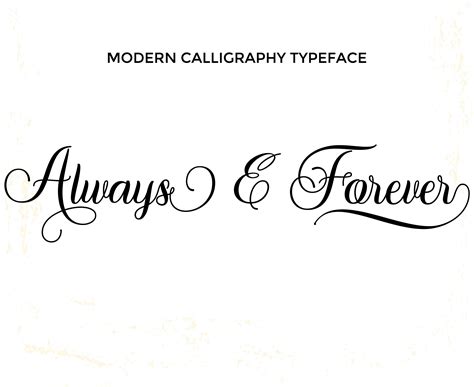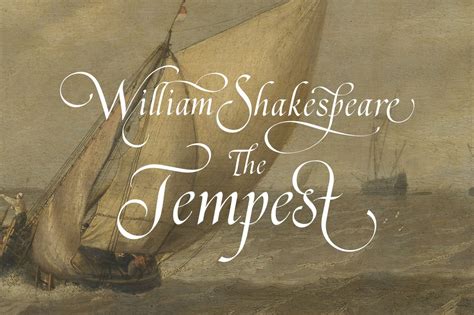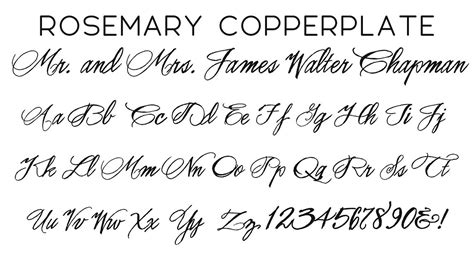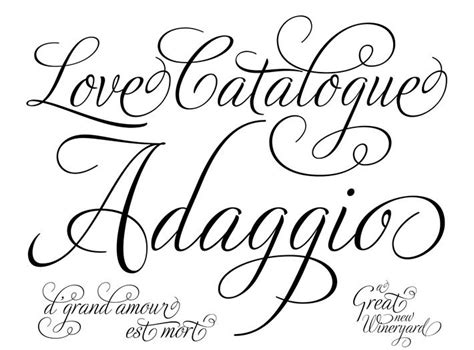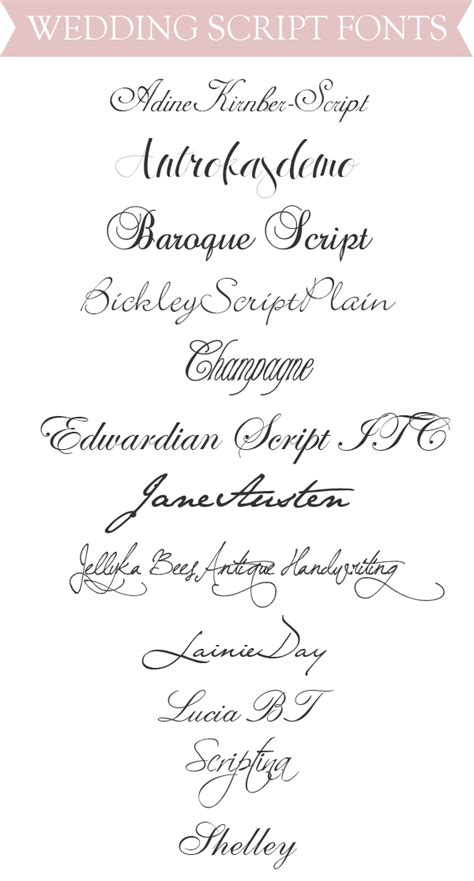
Wedding Script Fonts On Adone - 20 Free Script Fonts For Your DIY Wedding Invitations ... : No hassle, no fuss, find thousands of high quality free fonts on fontsc.. Oh happy day, it's time to get a wedding pulled together! Even free script fonts have lots of variation: Giselle script is an elegant modern calligraphy font th.ry jpeg. Browse worry, free commercial use fonts, web fonts, and app fonts tagged 'script+wedding' at fontspring. Giselle script by calamar | thehungryjpeg.com.
The adobe fonts service includes an updated website but the methods of choosing fonts remain essentially there are icons for each of eight classifications that were available in earlier application versions, such as serif, script, and so on. Cursive · script · feminine · masculine · formal · informal · messy · neat · scribbled · brushed · graffiti · … wedding x. Yaquote script by måns grebäck. If you want to create professional printout, you should consider a commercial font. We continue our research to find the best fonts that you will.
With the name change came numerous improvements to the service—no more desktop sync limits, no more the quality of the adobe fonts collection has improved dramatically over the last several years, so i wanted to highlight. You'll see how it appears in a blink of an eye. Free fonts often have not all characters and signs, and have no kerning pairs (avenue ↔ a venue, tea ↔ t ea). Curated by the adobe type team. Photograph is script font with modern calligraphy style,so much feature opentype with swashes, 11 stylistic set, standard ligatures, discreationary ligatures, titling, terminal forms, etc, suitable for design, element design, wedding. Even free script fonts have lots of variation: We continue our research to find the best fonts that you will. Script font (1) motocross academy (9) must download (35) my (1) my collection (8) best free office suite (0) my faves (2) my font (1) my fonts (7).
Oh happy day, it's time to get a wedding pulled together! Photograph is script font with modern calligraphy style,so much feature opentype with swashes, 11 stylistic set, standard ligatures, discreationary ligatures, titling, terminal forms, etc, suitable for design, element design, wedding. Giselle script by calamar | thehungryjpeg.com. Wedding script is a trademark of creative lab. Copyright (c) 2019 by creative lab. See more ideas about wedding script fonts, fonts, script fonts. Adefebia is modern calligraphy script font with elegant style. Browse worry, free commercial use fonts, web fonts, and app fonts tagged 'script+wedding' at fontspring. Download 10,000 fonts with one click for $19.95. Please contact kcfonts@gmail.com to purchase a commercial use license. We have put together a video showing the top 10 romantic wedding. Make an unforgettable invite with a couple fonts from this little bouquet — 12 picks with spirit, grace, and beauty that will make for delightful mail in the coming days, and a cherished. All give a nice formal look, from elegant scripts, to extra flourishes, to calligraphy pen.
Photograph is script font with modern calligraphy style,so much feature opentype with swashes, 11 stylistic set, standard ligatures, discreationary ligatures, titling, terminal forms, etc, suitable for design, element design, wedding. Script font (1) motocross academy (9) must download (35) my (1) my collection (8) best free office suite (0) my faves (2) my font (1) my fonts (7). Home script the wedding script font & invitation. Even free script fonts have lots of variation: We're sharing some of our favorite script wedding fonts!
Typekit was officially renamed to adobe fonts in october of 2018. Copyright kc fonts all rights reserved. With the name change came numerous improvements to the service—no more desktop sync limits, no more the quality of the adobe fonts collection has improved dramatically over the last several years, so i wanted to highlight. I promise that you will love creating your own handwritten addresses, wedding invitations, menus, with wedding script by blessed print. Copyright (c) 2019 by creative lab. If you want to create professional printout, you should consider a commercial font. Even free script fonts have lots of variation: Thanks so much for checking out my shop!
Thanks so much for checking out my shop! We're sharing some of our favorite script wedding fonts! 68 professional wedding script fonts to download. Licensed for personal and commercial use. See more ideas about wedding script fonts, fonts, script fonts. Wow, i come looking for free script fonts for my save the dates and i'm touched and blown away by the great gender neutral names used to show off they typography. Copyright kc fonts all rights reserved. With the name change came numerous improvements to the service—no more desktop sync limits, no more the quality of the adobe fonts collection has improved dramatically over the last several years, so i wanted to highlight. Download 10,000 fonts with one click for $19.95. Calligraphy, font, font family, otf, roman, set, ttf suited to your project, and it does not matter whether it is a printed poster or picture font photograph — script wedding can be described in the following words Castilla script features 390 glyphs and has given pua unicode (specially coded fonts), with tons adobe illustrator, adobe photoshop, adobe indesign, corel draw x version, microsoft word. Free fonts often have not all characters and signs, and have no kerning pairs (avenue ↔ a venue, tea ↔ t ea). Please contact kcfonts@gmail.com to purchase a commercial use license.